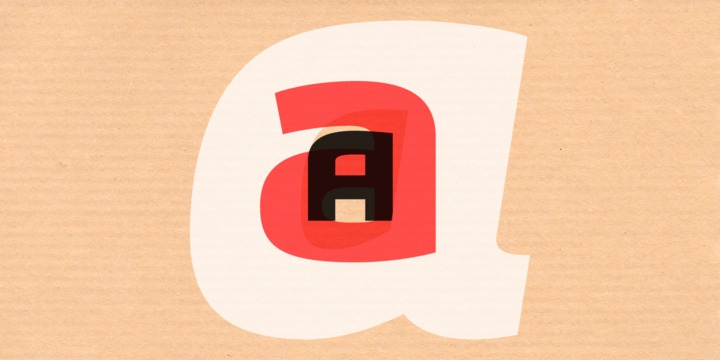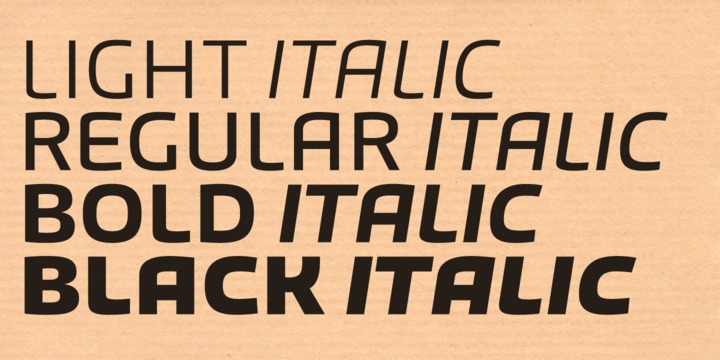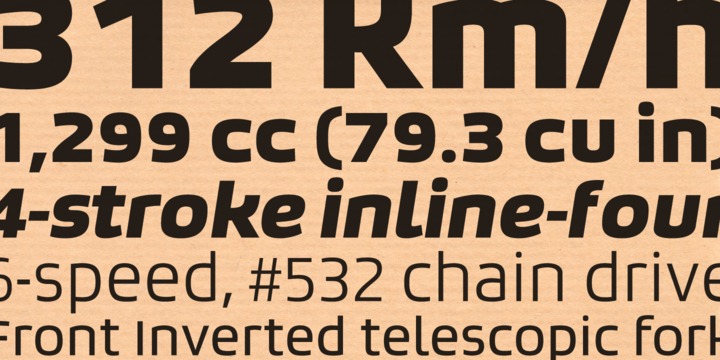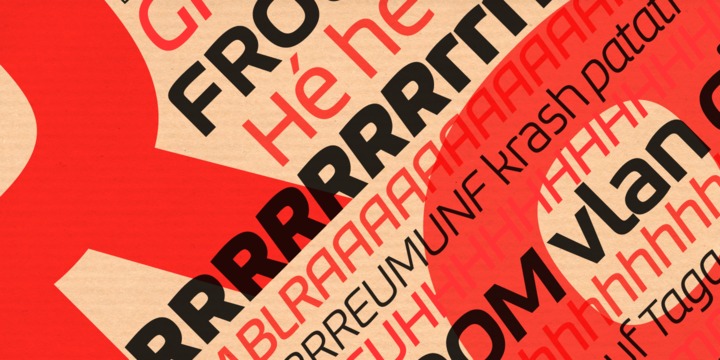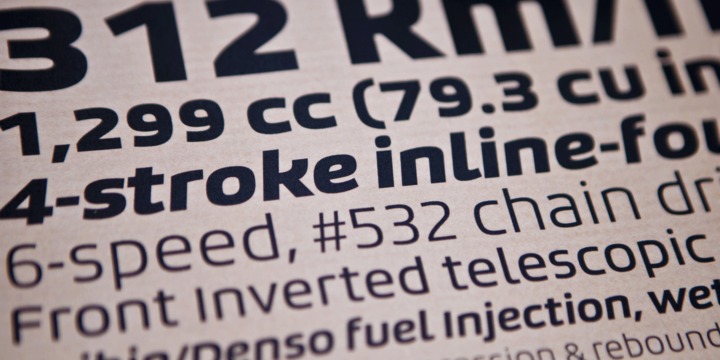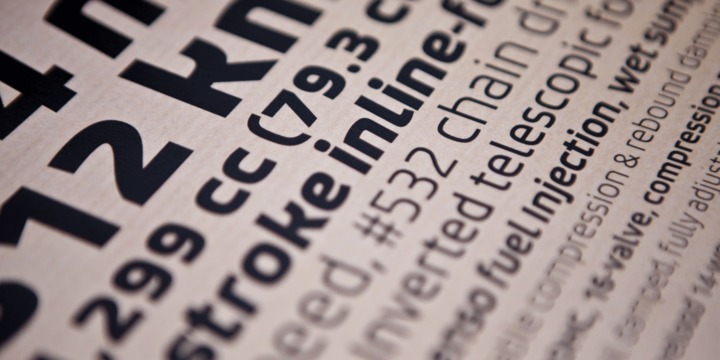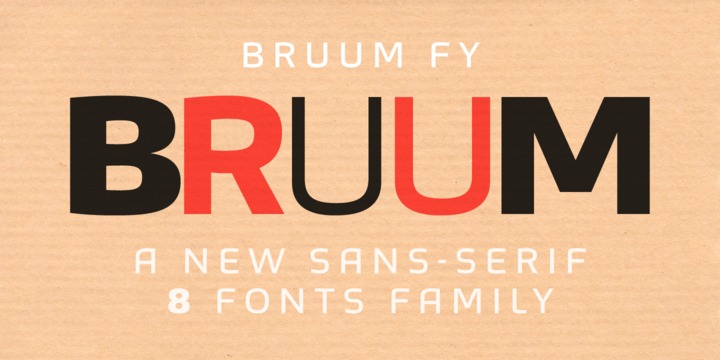
Bruum FY Font Family
This sans-serif font family alternates between curved and angular shapes, which gives it a technical and robust style and makes it both legible in small sizes and powerful in big sizes for headlines.